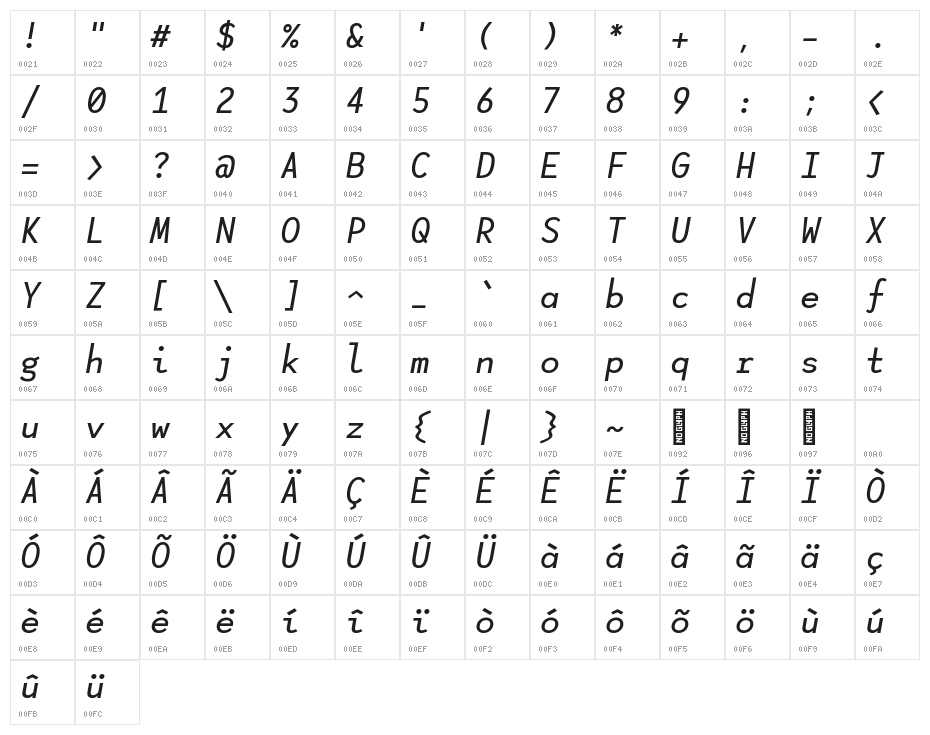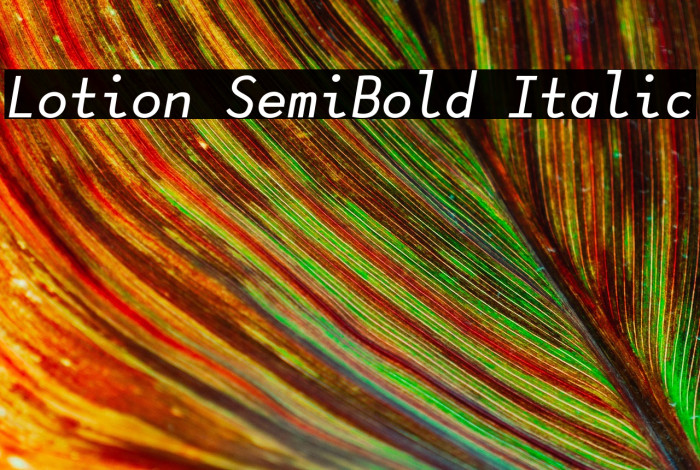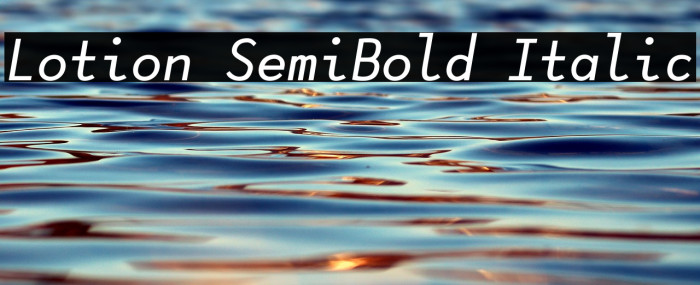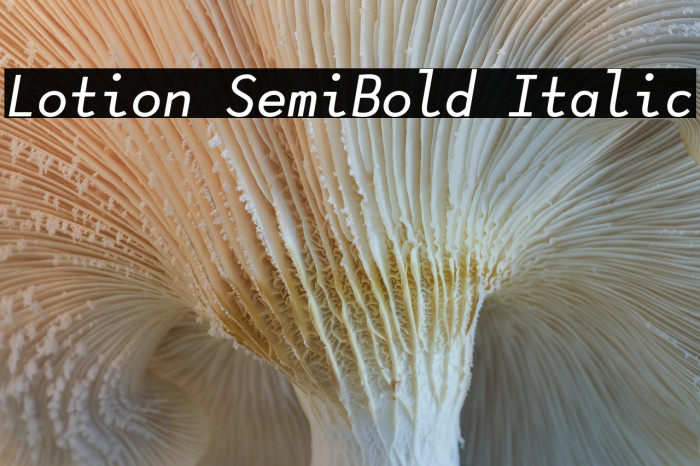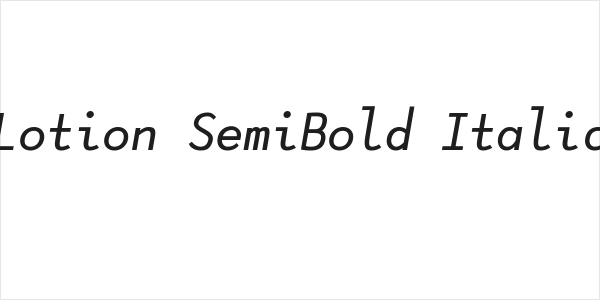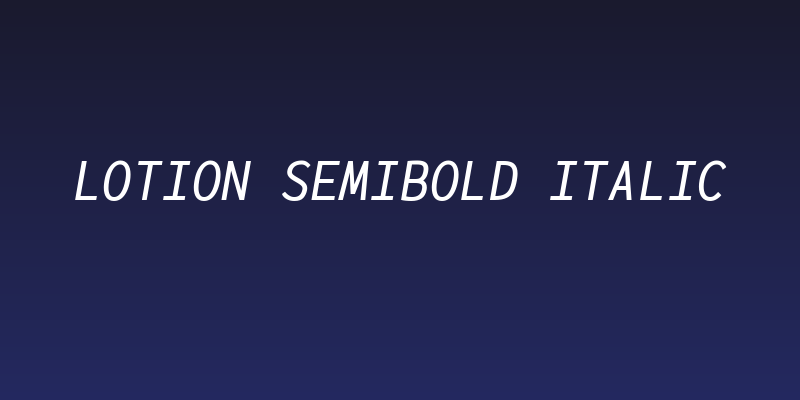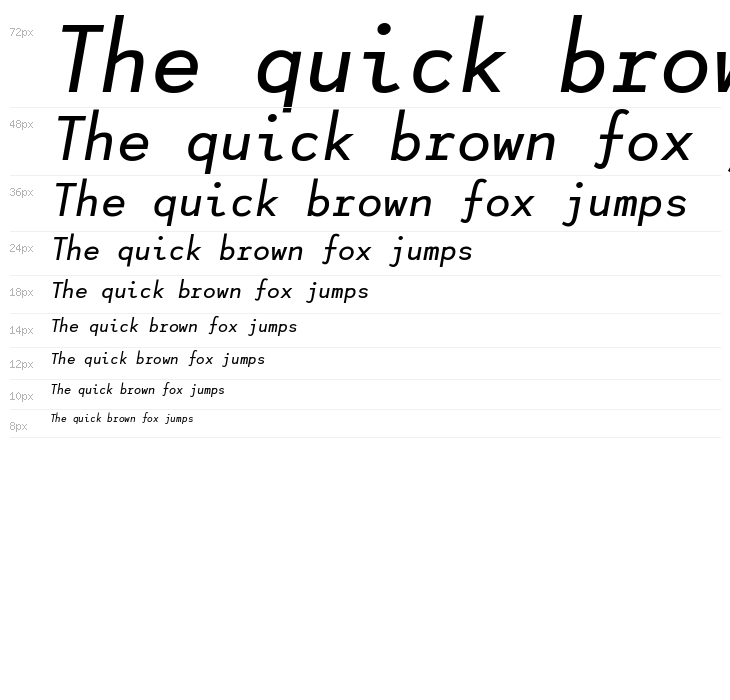
Lotion SemiBold Italic Font
Lotion SemiBold Italic Description
This font features a clean and modern design with a slight italic slant, giving it a dynamic and elegant appearance. The characters are well-proportioned, with a consistent stroke width that provides a balanced and harmonious look. The uppercase letters are bold and assertive, while the lowercase letters maintain a friendly and approachable feel. The numerals are clear and easy to read, making them suitable for various applications. Special characters are included, offering versatility for different design needs. Overall, this font combines readability with a touch of sophistication, making it suitable for both formal and casual contexts.
| Proposed Projects | Ideal for branding, advertising, editorial design, and digital interfaces. |